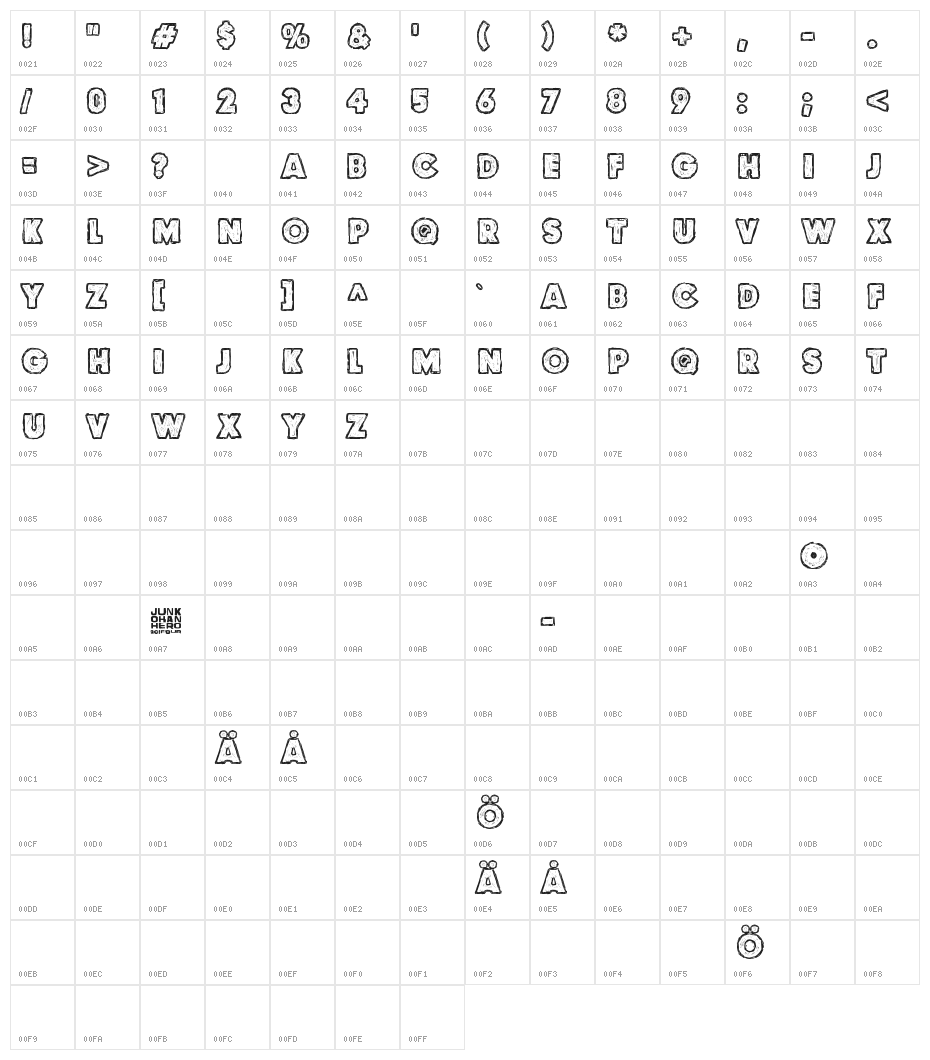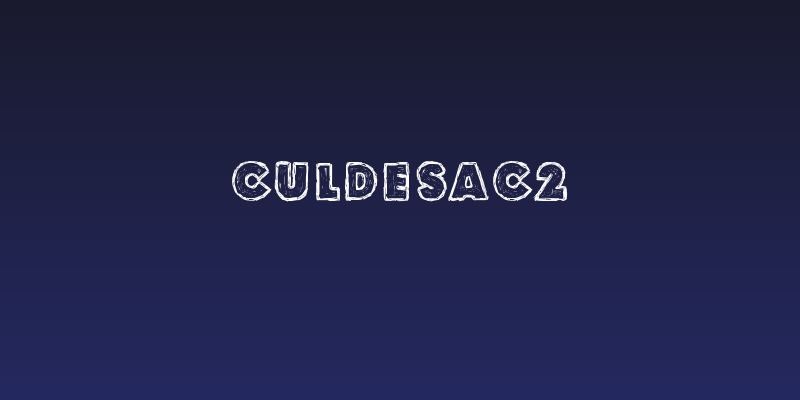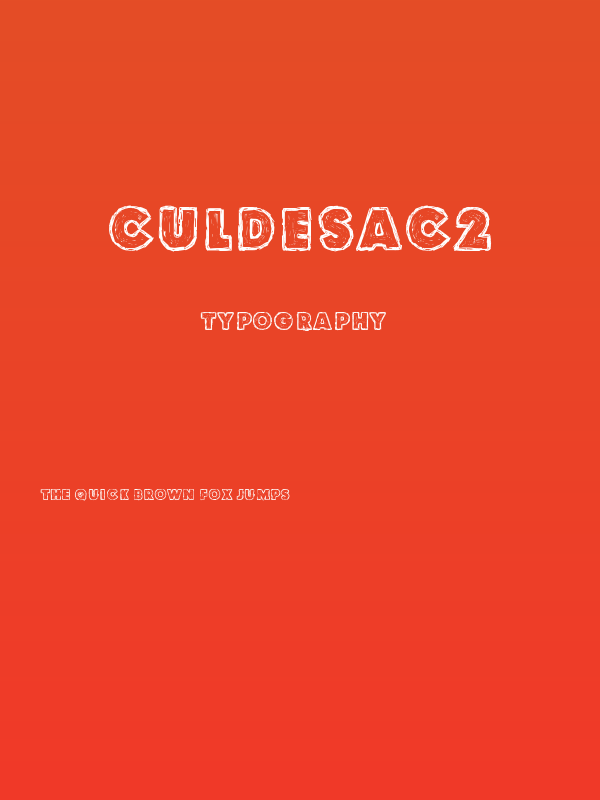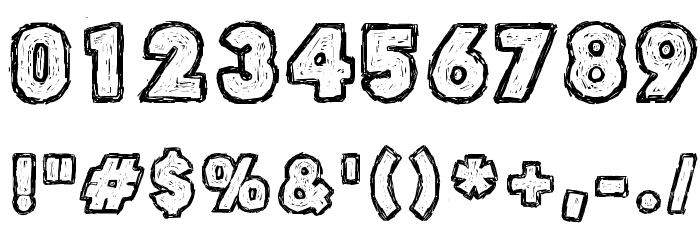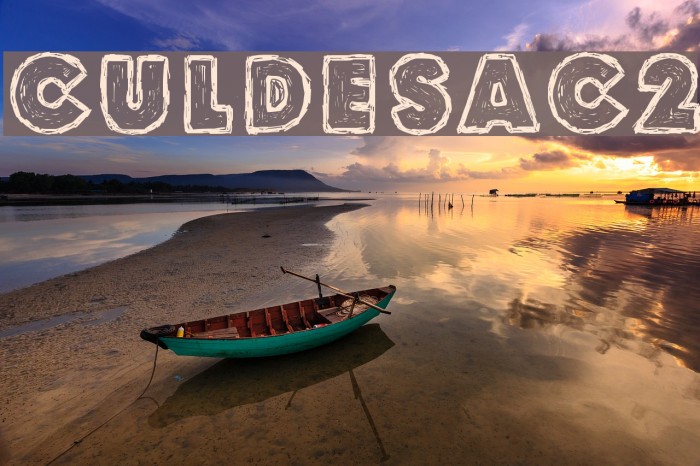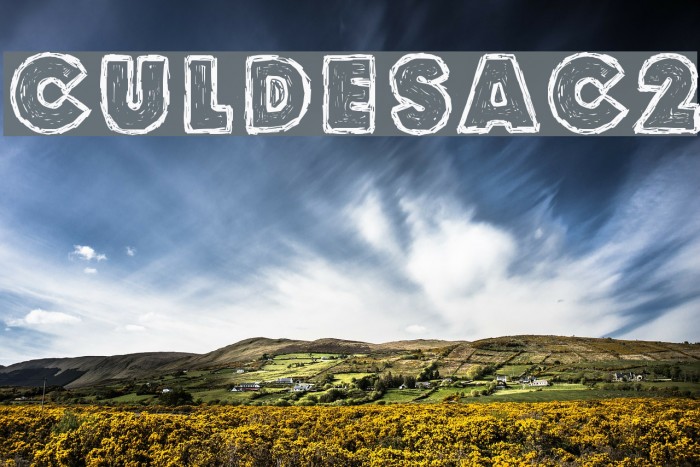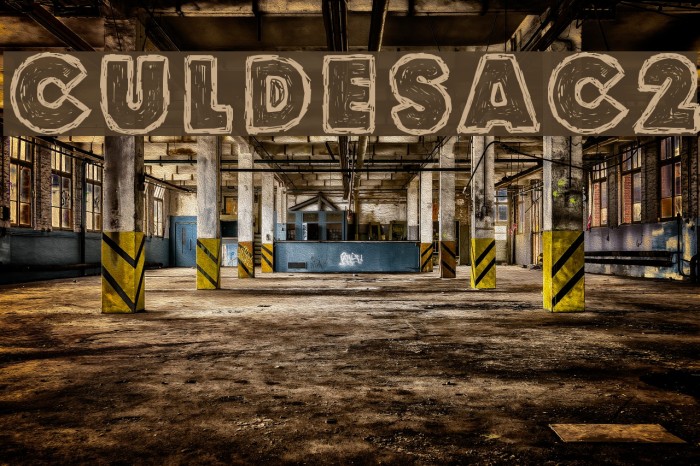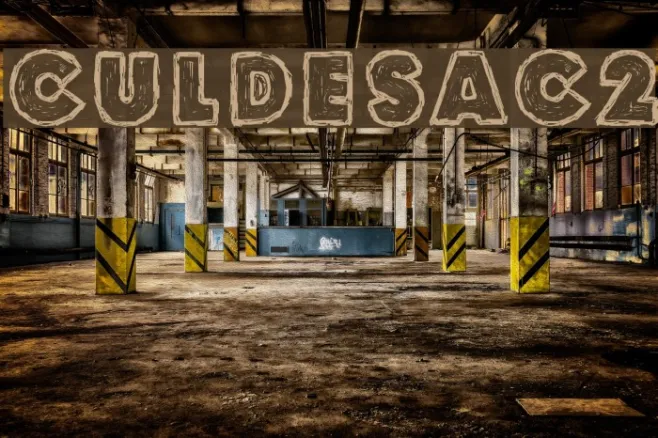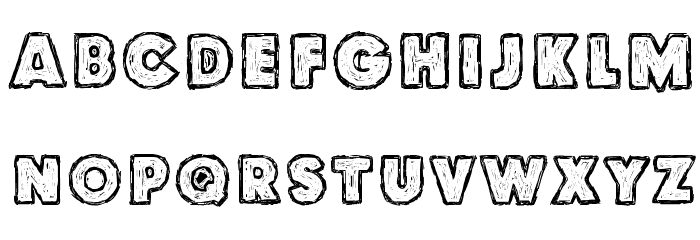
Culdesac2 Font
Culdesac2 Description
This font features a bold, textured style with a hand-drawn appearance. Each character is outlined with a rough, sketch-like quality, giving it a unique and artistic feel. The letters are uppercase and lowercase, with numbers and a variety of special characters included. The design is playful and eye-catching, making it suitable for creative projects. The texture within the characters adds depth and dimension, enhancing its visual appeal. This font is ideal for designs that require a touch of whimsy and creativity, such as posters, invitations, and branding materials. Its distinctive style ensures that it stands out in any application.